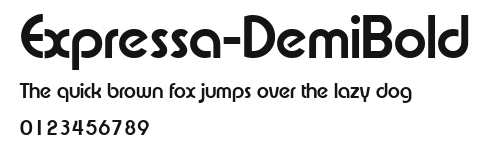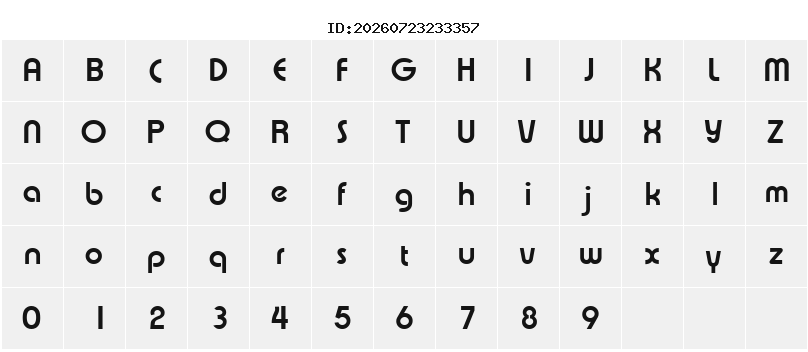
Expressa-DemiBold.ttf is a modern, elegant sans-serif font designed for ultimate readability and visual harmony. Perfect for branding, headlines, web design, and print materials.